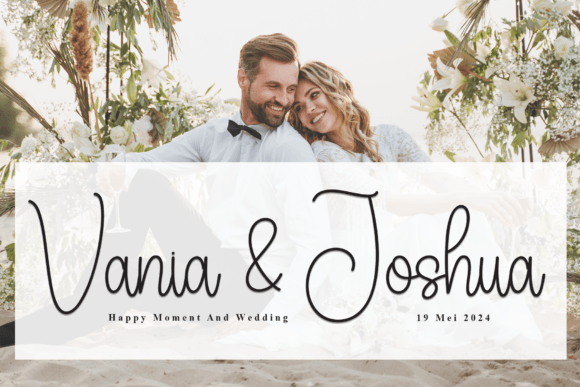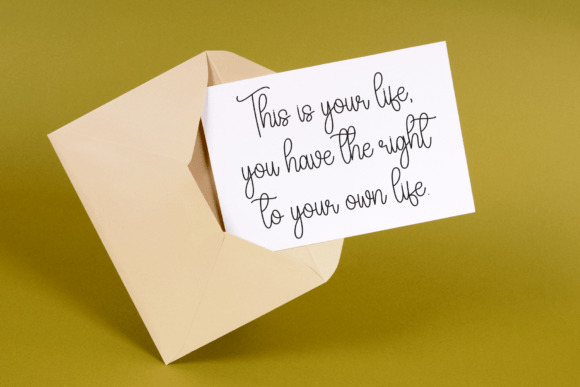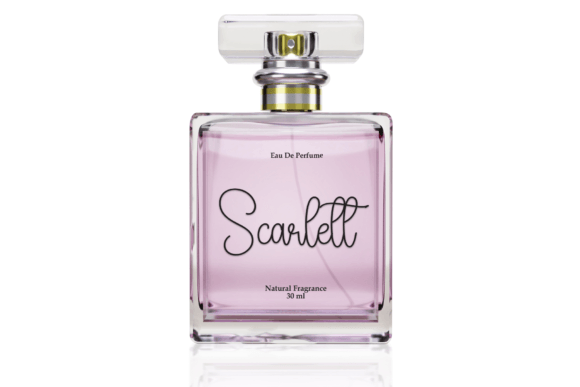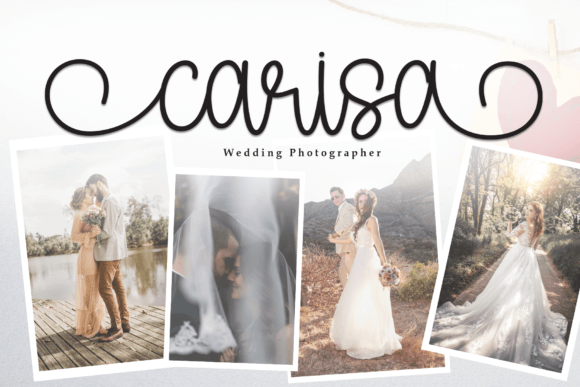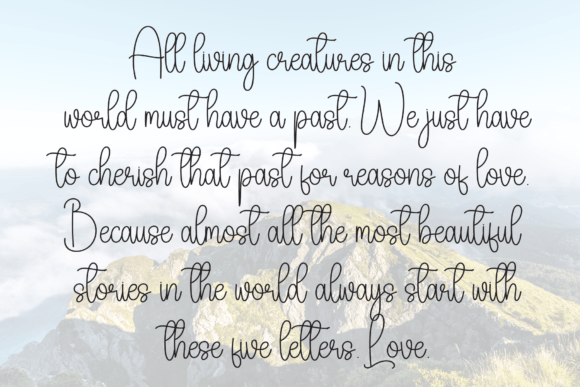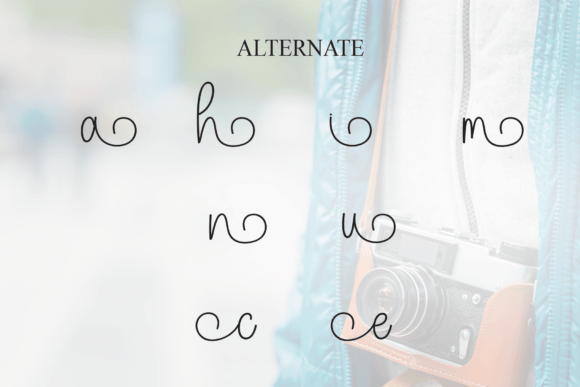
The Camera Font: A Sweet and Friendly Handwritten Delight
Have you ever been in the middle of a design project, and suddenly, you’re stuck on finding the perfect font? I recall a wedding invitation project where I needed a font that was both cute and elegant. After hours of searching, I stumbled upon the Camera Font, and it instantly became my go-to choice. In this article, I’ll share my experience with this lovely font, its features, and how to make the most of it in your designs.
A Personal Review of Camera Font
The Camera Font is a sweet and friendly handwritten font that’s perfect for adding a fun touch to your designs. Here’s what I love about it:
• ✨ Cute and playful: The Camera Font has a charming, handcrafted feel that’s ideal for wedding invitations, cards, and other designs that require a personal touch.
• ✅ Easy to read: Despite its playful nature, the font remains clear and easy to read, making it perfect for body text.
• 💕 Versatile: The Camera Font can be used for a wide range of projects, from formal events to casual gatherings.
While the Camera Font is an excellent choice, it’s not without its quirks:
• 🤔 Limited character set: The font may not have an extensive character set, which can limit its use in certain projects.
• ⚠️ Not suitable for long texts: While readable, the Camera Font is best used in moderation. It may not be the best choice for lengthy texts or articles.
The Story Behind Camera Font
The Camera Font was designed by a talented type designer who’s passionate about creating unique and beautiful fonts. Inspired by the world of photography and the art of capturing life’s precious moments, the designer aimed to create a font that’s both sweet and friendly. With its charming, handcrafted feel, the Camera Font is perfect for designers and crafters looking to add a personal touch to their projects.
What is the Camera Font best used for? The Camera Font is ideal for wedding invitations, cards, and other designs that require a fun and personal touch.
Is the Camera Font suitable for long texts? While readable, the Camera Font is best used in moderation. It may not be the best choice for lengthy texts or articles.